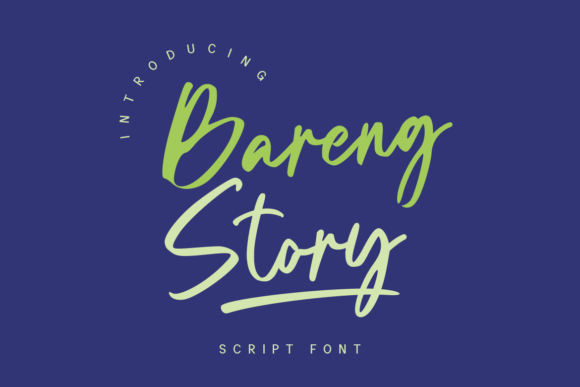
The Perfect Font to Bring Your Ideas to Life
You know that feeling when you’re brainstorming ideas and suddenly, a concept clicks? The excitement is palpable, and you can’t wait to share it with the world. But, the way you present it is just as important as the idea itself. That’s where the right font comes in – a font that can elevate your message and leave a lasting impression.
Enter Bareng Story Font, a fresh and contemporary-looking script font designed to take your creative ideas to the next level. This masterfully crafted font is perfect for designers looking to add a touch of elegance and sophistication to their work. Whether you’re a graphic designer, a writer, or a creative entrepreneur, Bareng Story Font is a valuable addition to your toolkit.
Bareng Story Font Key Features
- Font Family: Bareng Story Font is a unique, hand-drawn font designed for storytelling and creative purposes.
- Character Set: Includes a wide range of characters, including uppercase and lowercase letters, numbers, punctuation marks, and special characters.
- Unique Characteristics: Features a distinctive, hand-drawn style with varying line widths and irregularities, giving it a unique and creative feel.
Bareng Story Font Review
Bareng Story Font is a beautiful, elegant script font that works well for any project that needs a touch of sophistication. ✨ The fluid connections between letters create a smooth, flowing feel that’s perfect for titles, quotes, or any other text that needs to stand out. ✨ The font also includes a wide range of language support, making it a great option for international projects. ✨
- ⚠️ Bareng Story Font can be a bit challenging to read at small font sizes due to its complex connections between letters.
- ⚠️ The font may not be suitable for projects that require a lot of bold or italic text, as it can become difficult to read in these styles.
Overall, I think Bareng Story Font is a great addition to any designer’s toolkit. While it may have some limitations, its unique style and elegant feel make it a great choice for projects that need a touch of sophistication. With careful use and attention to font size and style, Bareng Story Font can add a beautiful touch to any design.
Tips for Getting the Most Out of Bareng Story Font
Use Bareng Story Font for titles and headings to add a touch of elegance and sophistication to your designs. Experiment with different font sizes and colors to create visual interest. Pair Bareng Story Font with other fonts to create a unique and eye-catching design.